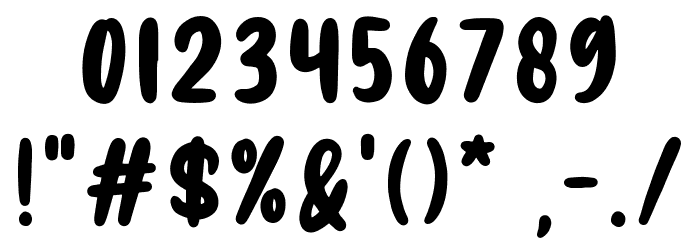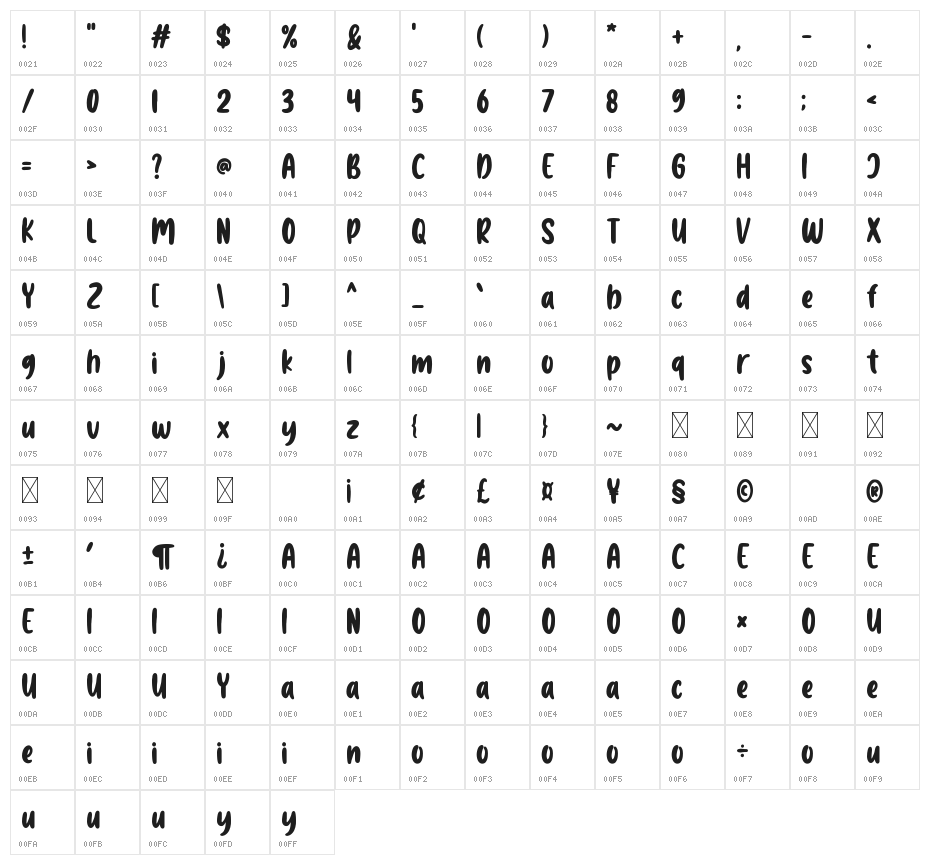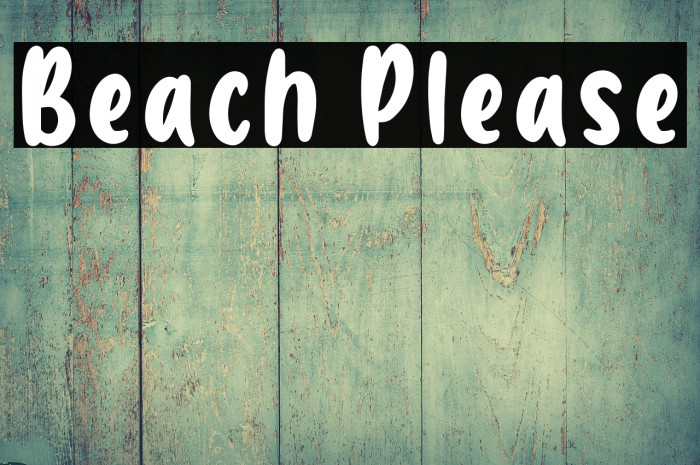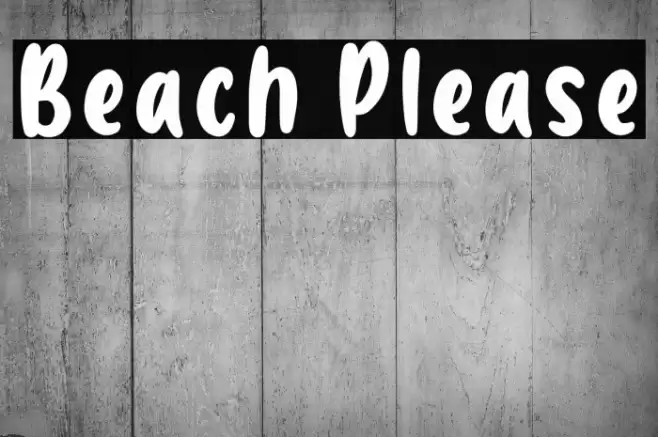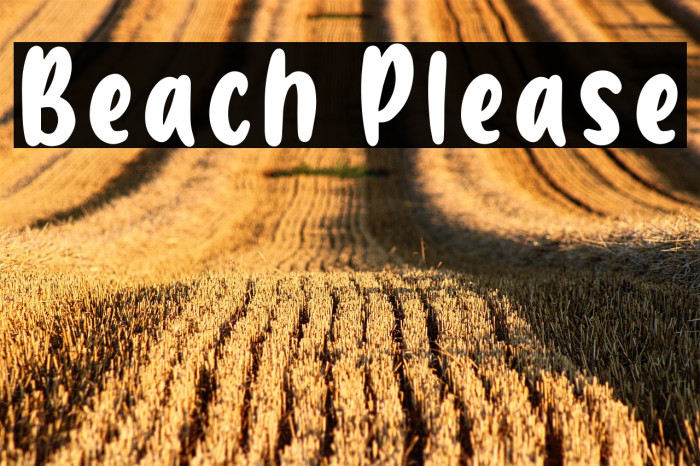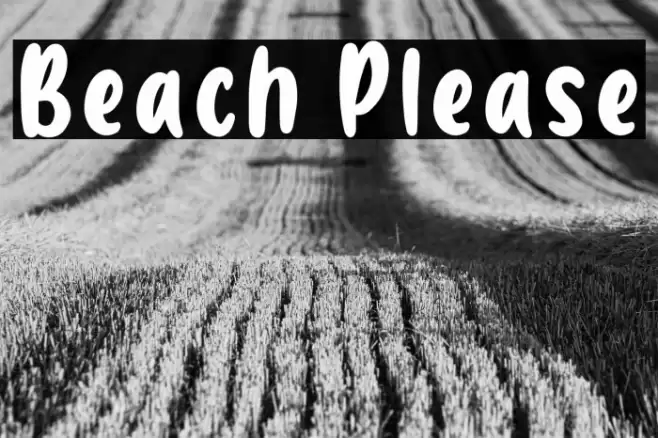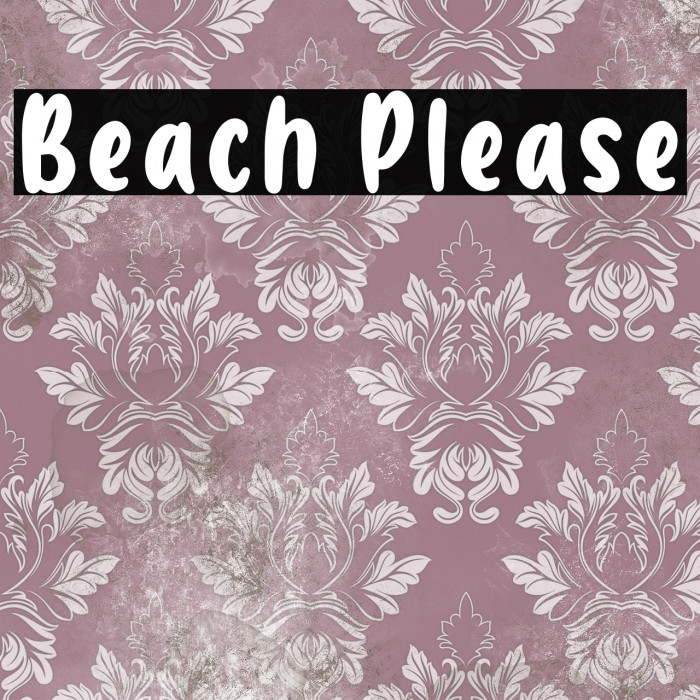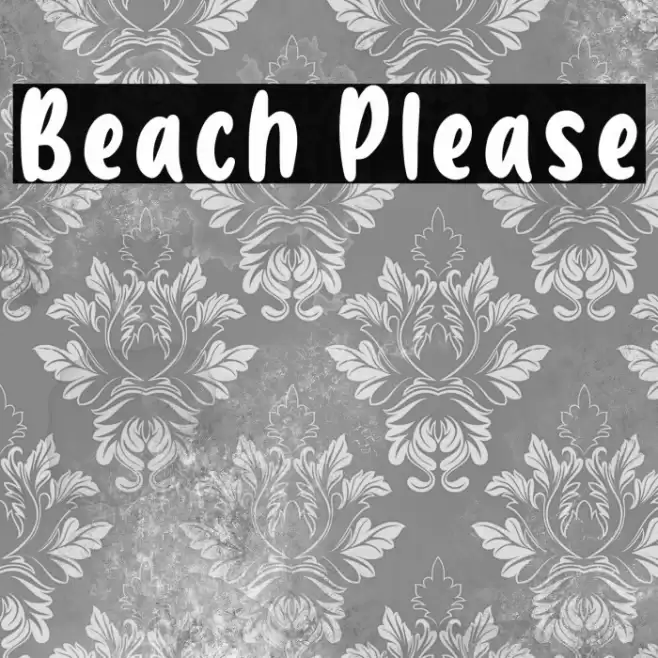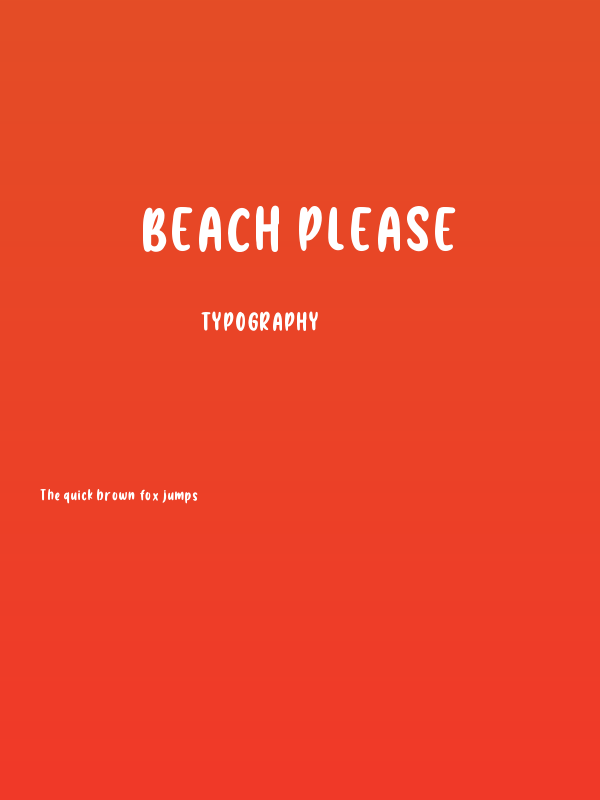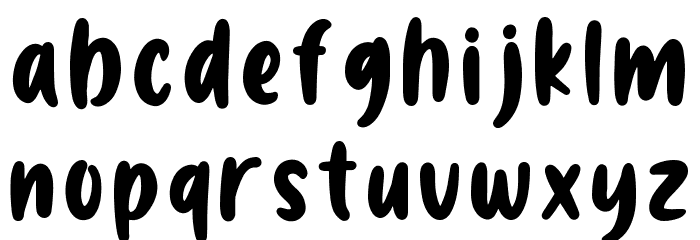
Beach Please Font
Beach Please Description
This font features a playful and bold handwritten style, characterized by its thick, rounded strokes and casual appearance. The letters are slightly irregular, adding a whimsical touch that evokes a sense of fun and creativity. The uppercase and lowercase letters maintain a consistent style, with smooth curves and a friendly demeanor. Numbers and special characters are designed to match the overall aesthetic, ensuring a cohesive look across all text elements. This font is perfect for projects that require a personal and approachable feel, making it ideal for creative and informal designs.
| Proposed Projects | Ideal for greeting cards, children's books, playful branding, and social media graphics. |